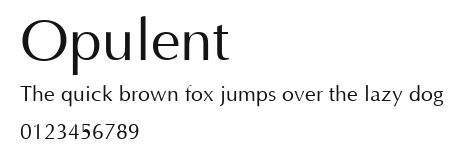
Opulent.ttf is a modern, elegant sans-serif font designed for ultimate readability and visual harmony. Perfect for branding, headlines, web design, and print materials.